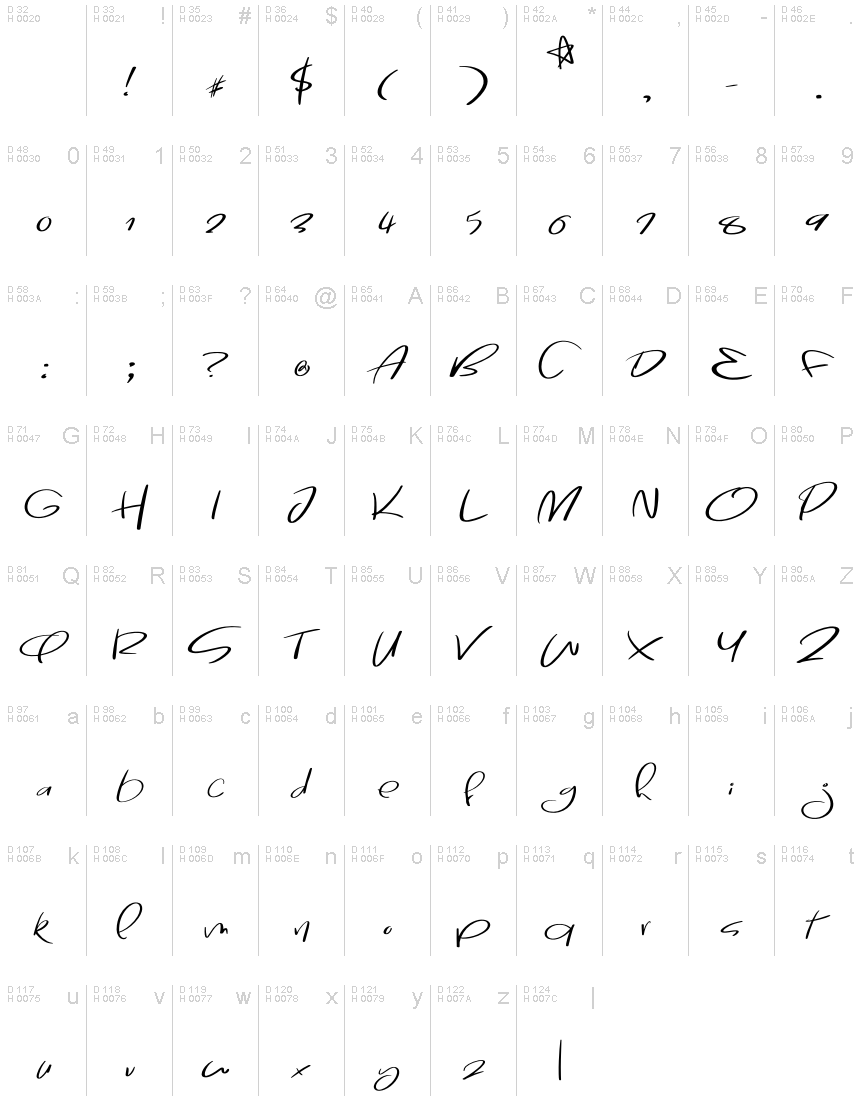
Have You Eaten? Regular
Have You Eaten? is a captivating handwritten script font designed by Roland Huse Design. With its casual and organic strokes, this font exudes a sense of warmth and authenticity, evoking a delightful and approachable ambiance. The varied letter shapes and stylistic alternates, which cycle randomly, lend a natural and hand-crafted feel to the typography, making each instance of the font truly unique.
The versatility of Have You Eaten? allows it to shine in a wide range of applications, from captivating menu designs and tantalizing food packaging to charming social media posts and heartfelt stationery. Its playful yet refined aesthetic makes it an ideal choice for branding, advertising, and editorial projects that aim to convey a sense of homemade goodness and personal connection.
Ligatures: oo, ll, tt, ss.